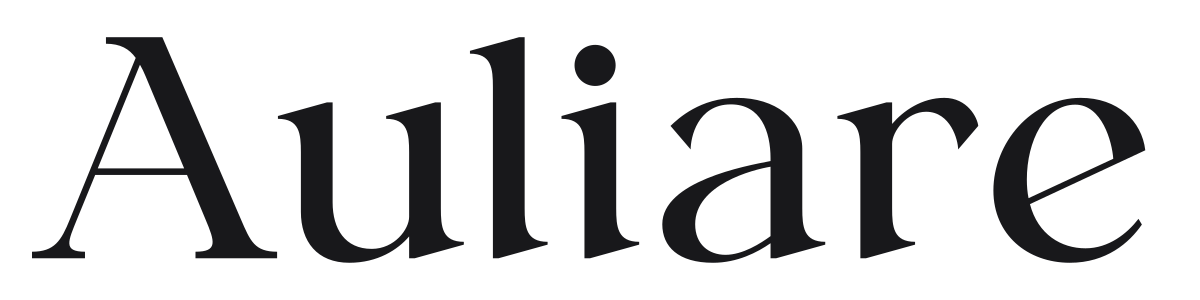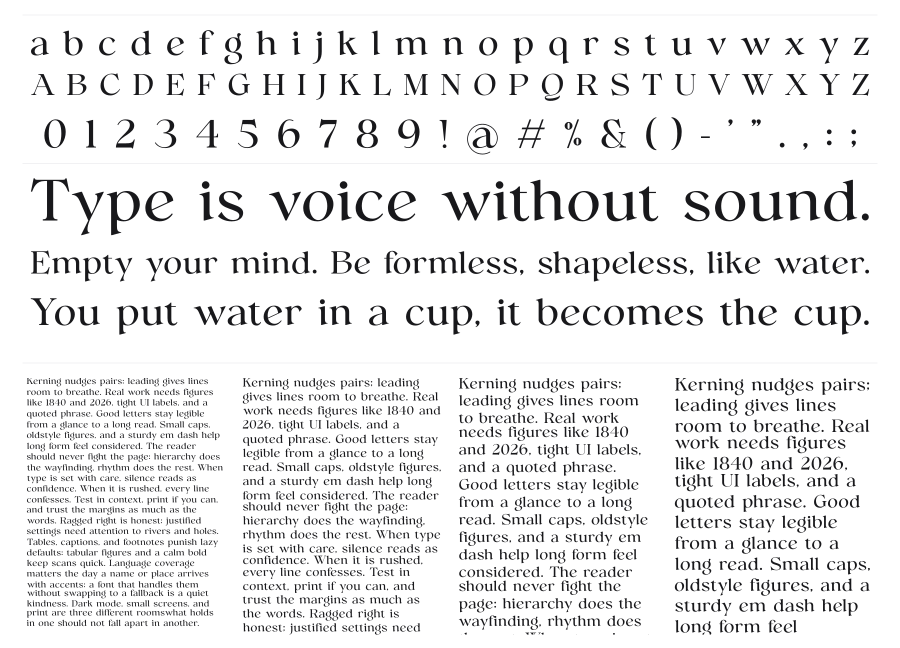
Auliare
Auliare is a high-contrast modern serif with dramatic hairline strokes set against bold vertical stems. The wide, airy proportions give it a contemporary editorial quality that sits comfortably in luxury branding and fashion contexts. It draws from the Didone tradition without feeling derivative.